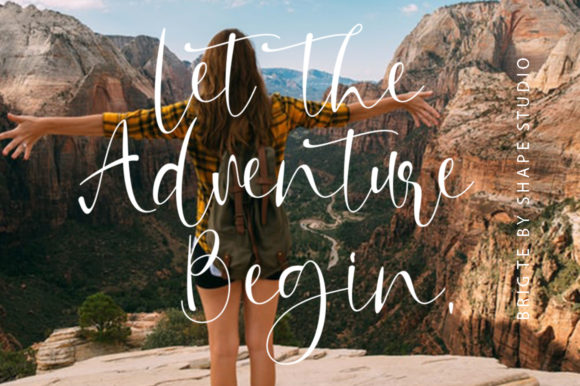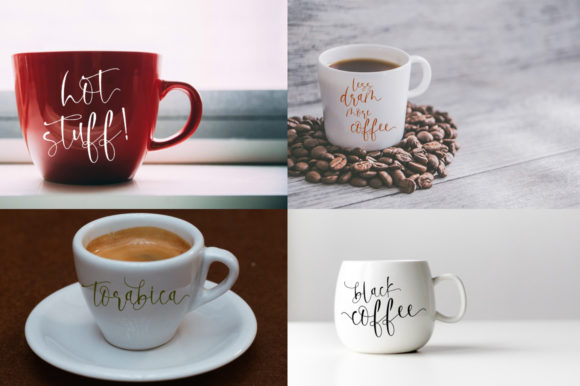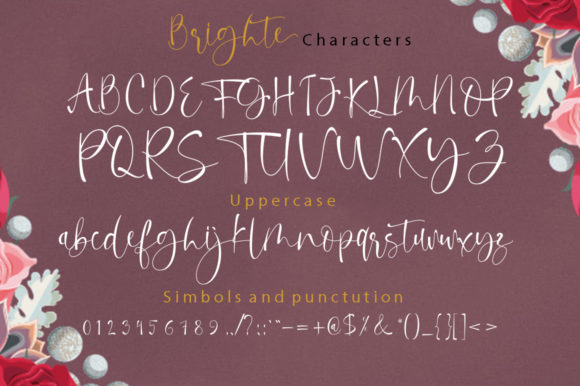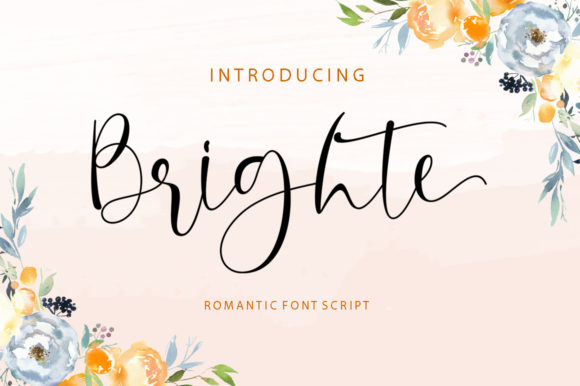
Discover the Elegance of Brighte Font: Elevate Your Design Projects with a Modern Twist
In the realm of typography, fonts play a pivotal role in conveying messages, evoking emotions, and enhancing the aesthetic appeal of design projects. Among the myriad of fonts available, Brighte Font stands out as a modern and unique script that brings a beautiful feel to any design. Whether you’re a designer, crafter, or simply someone who appreciates the art of typography, Brighte Font is sure to captivate you with its authentic charm.
The Essence of Brighte Font
Brighte Font is a contemporary script typeface that exudes elegance and sophistication. Its unique design elements make it an excellent choice for a wide range of design projects, from branding and advertising to packaging and digital media. The font’s modern aesthetic is balanced with a classic feel, making it versatile and adaptable to various creative endeavors.
What Makes Brighte Font Special?
- Unique and Modern Design: Brighte Font boasts a distinctive and modern design that sets it apart from traditional scripts. Its clean lines, flowing curves, and subtle variations in line width create a visually appealing effect.
- Beautiful Feel: The font’s design is crafted to evoke an emotional response, making it perfect for projects where you want to connect with your audience on a deeper level.
- Authentic Touch: Brighte Font adds an authentic touch to any design project, making it ideal for brands and designers looking to create a genuine and lasting impression.
- Versatility: The font’s versatility makes it suitable for a wide range of applications, from digital media and advertising to print materials and packaging.
Applications of Brighte Font
Brighte Font’s adaptability and aesthetic appeal make it an excellent choice for various design projects, including:
- Branding and Logo Design: Create a lasting impression with a unique and memorable logo that reflects your brand’s personality.
- Advertising and Marketing Materials: Elevate your advertising campaigns with a font that grabs attention and communicates your message effectively.
- Digital Media: Enhance your website, social media, and digital content with a modern and engaging font that resonates with your audience.
- Packaging and Product Design: Add a touch of elegance and sophistication to your product packaging and design.
Tips for Using Brighte Font Effectively
To make the most of Brighte Font, consider the following tips:
- Pair it with Complementary Fonts: Combine Brighte Font with complementary fonts to create visual interest and hierarchy in your design.
- Experiment with Colors and Textures: Play with different colors and textures to enhance the font’s appearance and adapt it to your design’s tone and mood.
- Pay Attention to Line Spacing and Kerning: Adjust line spacing and kerning to ensure optimal readability and aesthetic appeal.
| Font Name | Brighte Font |
| Author | Shape Studio |
Brighte Font is a modern and unique script that brings a beautiful feel to any design project. Its elegant design, versatility, and authentic touch make it an excellent choice for designers, crafters, and anyone looking to elevate their creative endeavors. By incorporating Brighte Font into your design projects, you’ll be able to create stunning visuals that captivate and engage your audience.
Whether you’re looking to create a lasting impression with a brand logo, enhance your digital media, or add a touch of sophistication to your packaging, Brighte Font is sure to exceed your expectations. Discover the elegance of Brighte Font today and take your design projects to the next level!